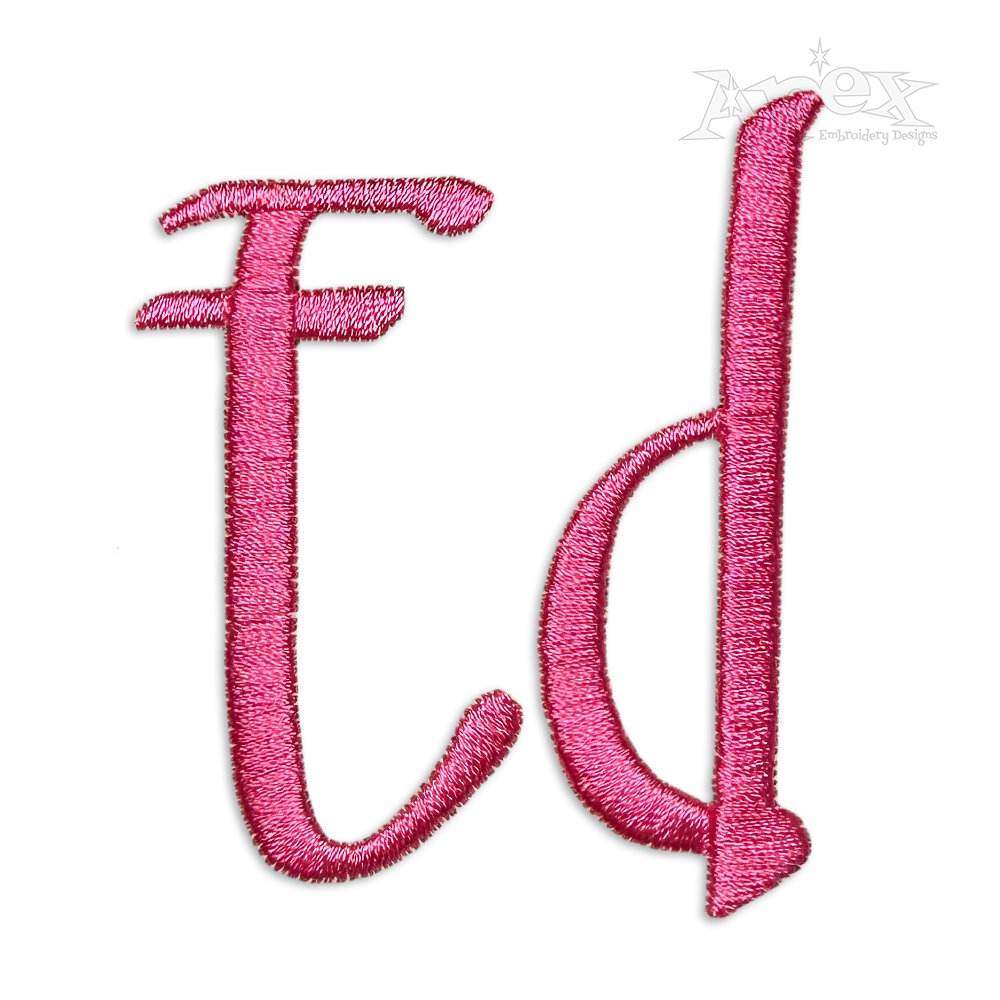
Swing Set Embroidery Fonts
Picture sun-drenched afternoons, gentle breezes, and the lilting, weightless joy of childhood momentum. When drawing the initial sketches for the Swing Set embroidery font, our digitizing studio set out to capture that buoyant, carefree motion within a beautifully structured satin stitch alphabet. Each letterform glides with an expressive cadence—blending whimsical, swooping curves with the exacting precision required for flawless stitchouts. From the spirited lift of the uppercase flourishes to the easy grace of the lowercase stems, this collection breathes relaxed sophistication and nostalgic warmth into personalized textiles.
Project Ideas for Swing Set
The animated grace of the Swing Set font makes it a delight across both casual everyday pieces and formal bespoke gifting:
- Linen Cocktail Napkins: Stitch single initials or lighthearted party monograms onto crisp linen for an effortlessly chic barware update.
- Heirloom Nursery Textiles: Embroider baby blankets, christening pillows, and cotton layettes with a tender, storybook aesthetic.
- Bespoke Resort Wear: Elevate breezy poplin button-downs, cover-ups, and sunhats with playful personalized lettering.
- Personalized Canvas Totes: Create spirited weekend duffels, market bags, or bridal party gifts with the larger 3-inch letters.
- Heirloom Bedding & Bath Linens: Add tailored charm to hemstitched guest towels and pillow shams with balanced two-letter or three-letter compositions.
Because Swing Set carries natural motion and buoyant curves, thoughtful hoop positioning allows its energetic silhouettes to truly shine:
- Corner Diagonal: Angle single uppercase initials 1.5 to 2 inches from the corner point of hemstitched napkins or tea towels for a classic, relaxed drape.
- Center Chest: Align monograms or full names along the natural center chest line of children's sweaters, rompers, and knit tops.
- Cuff & Hem Accents: Utilize the 1-inch scale along shirt cuffs, skirt hems, or Peter Pan collars for a sophisticated whisper of customization.
- Pocket Bands & Flaps: Center lowercase combinations or two-letter monograms just above or across patch pockets on denim jackets and aprons.
Swing Set Craft & Letterform Details
Translating playful freehand curves into pristine machine embroidery requires deep respect for thread behavior. Every stroke in the Swing Set alphabet is hand-digitized with tailored stitch angles that shift dynamically through each arch, capturing light like polished silk. Rather than relying on uniform, automated fills, we engineered the underlay to anchor foundational fabrics securely while allowing the top satin passes to achieve tactile, three-dimensional loft.
We paid specific attention to the junction points where loops crossover and serifs taper. By programming intelligent push-and-pull compensation, each curve retains its circular purity without puckering or drifting out of alignment on finicky knits and airy wovens alike. The result is a stitch file that sews with quiet, dependable ease, producing crisp, singing contours that celebrate the fine art of custom monogramming.